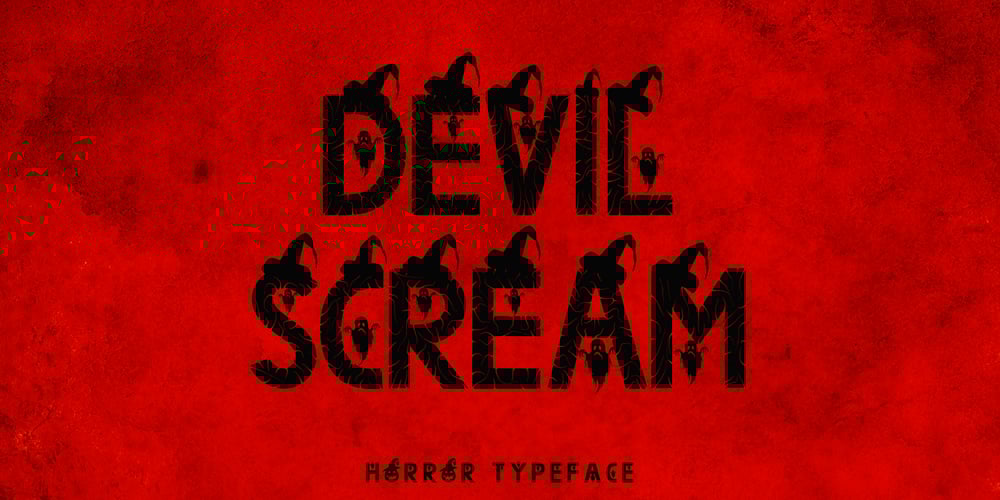
Devil Scream Font Family was designed by Isroni Yoga Prasetya and published by Yoga Letter. Devil Scream contains 1 styles and family package options. “Devil Scream” is a very unique horror font, as it is equipped with ghost decorations and a witch’s hat on each letter. This font is very easy to use because the letters and decorations will automatically appear when typing letters. “Devil Scream” is a display font with a horror theme that will add a horror atmosphere to your Halloween party celebration. In addition, this font can also help your work. This font can be used as logos, branding, banners, posters, prints, stickers, horror movie titles, book titles, comics, or others.